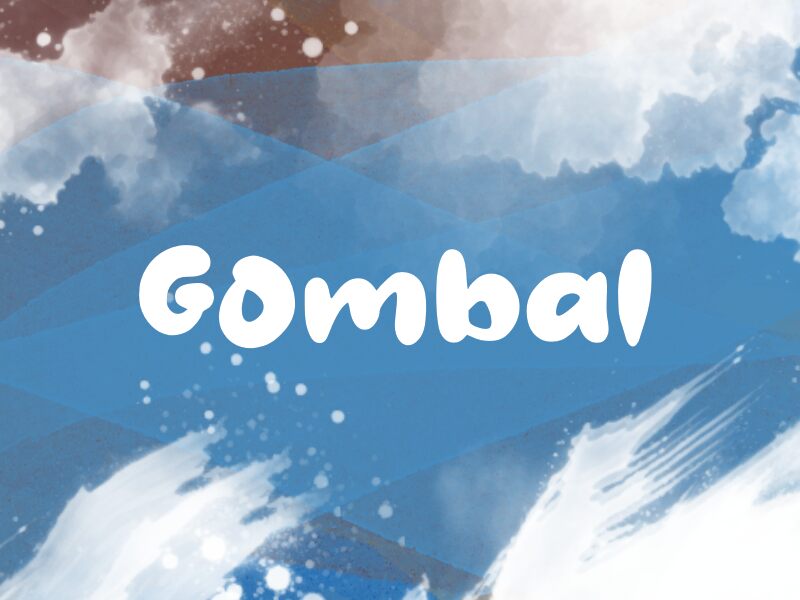
Gombal
Gombal, a captivating display font crafted by designer wep, exudes a delightful, cartoon-inspired aesthetic. With its bold, playful lines and dynamic curves, this font effortlessly captures the essence of whimsy and charm. The contrasting thick and thin strokes create a striking visual rhythm, while the rounded terminals lend a friendly, approachable feel. Gombal's distinctive character invites the viewer to embrace its playful spirit, making it an excellent choice for a wide range of creative projects.
This versatile font shines in attention-grabbing headlines, vibrant logo designs, and engaging social media graphics. Its bold, yet approachable nature makes it an ideal fit for children's products, event branding, and playful marketing campaigns. Gombal's versatility extends to its ability to seamlessly blend with both modern and vintage-inspired design elements, allowing designers to craft visually captivating compositions that leave a lasting impression.